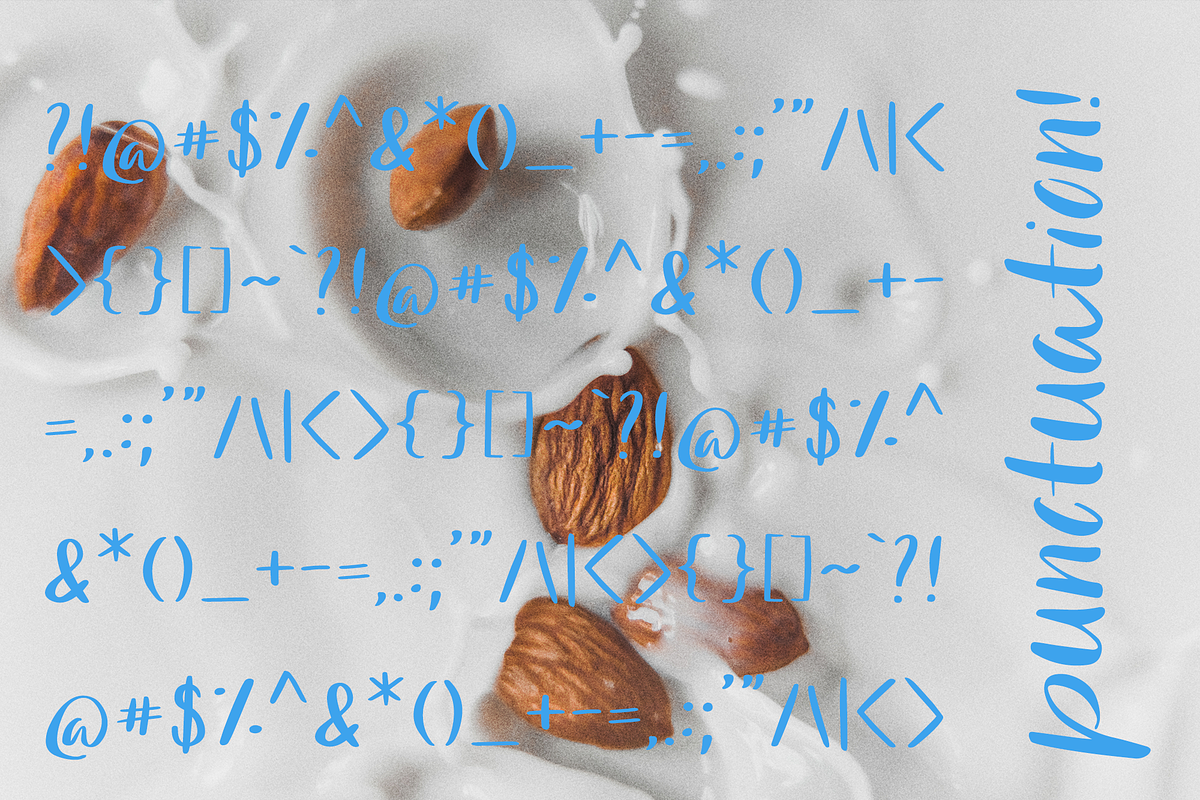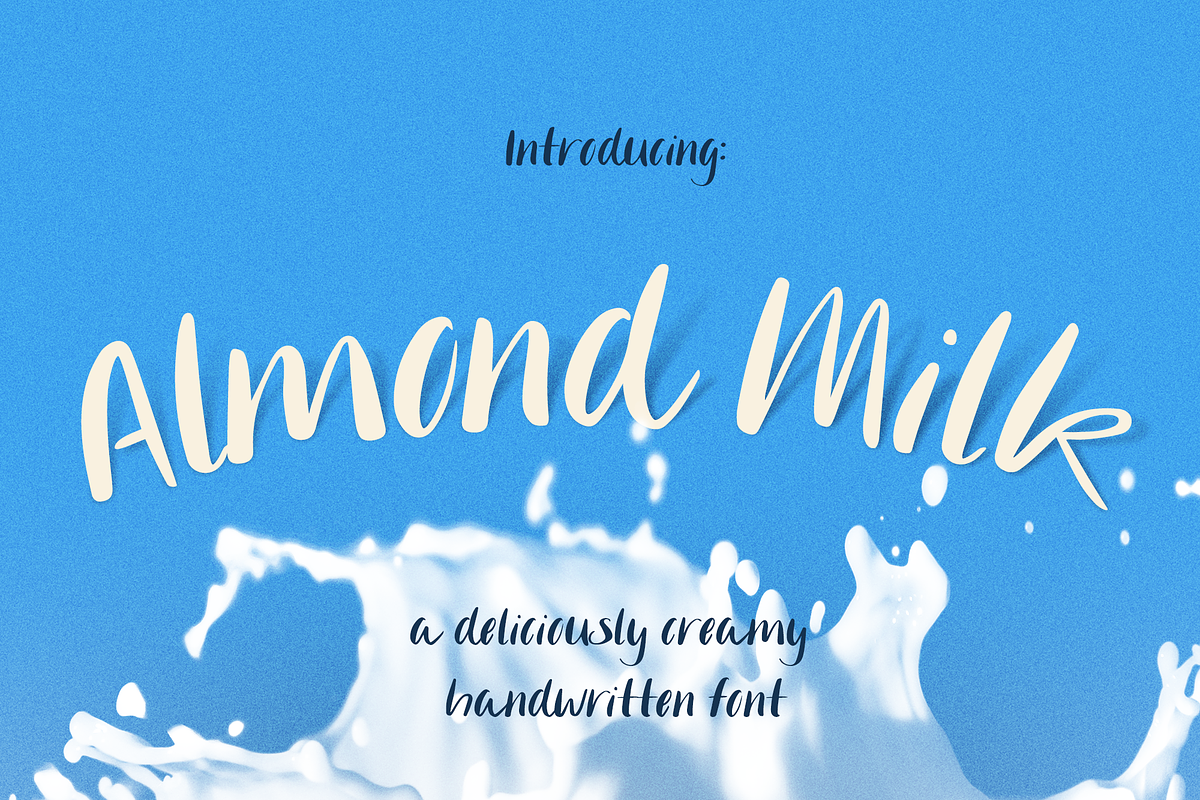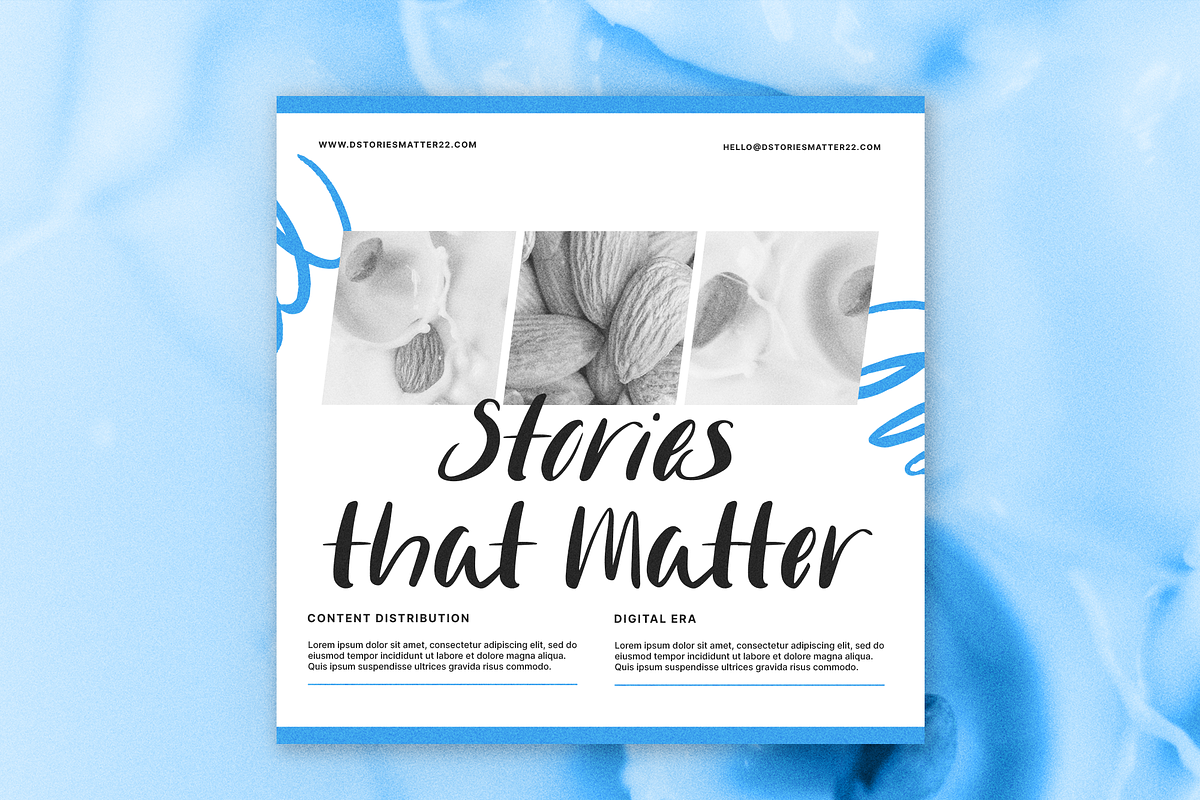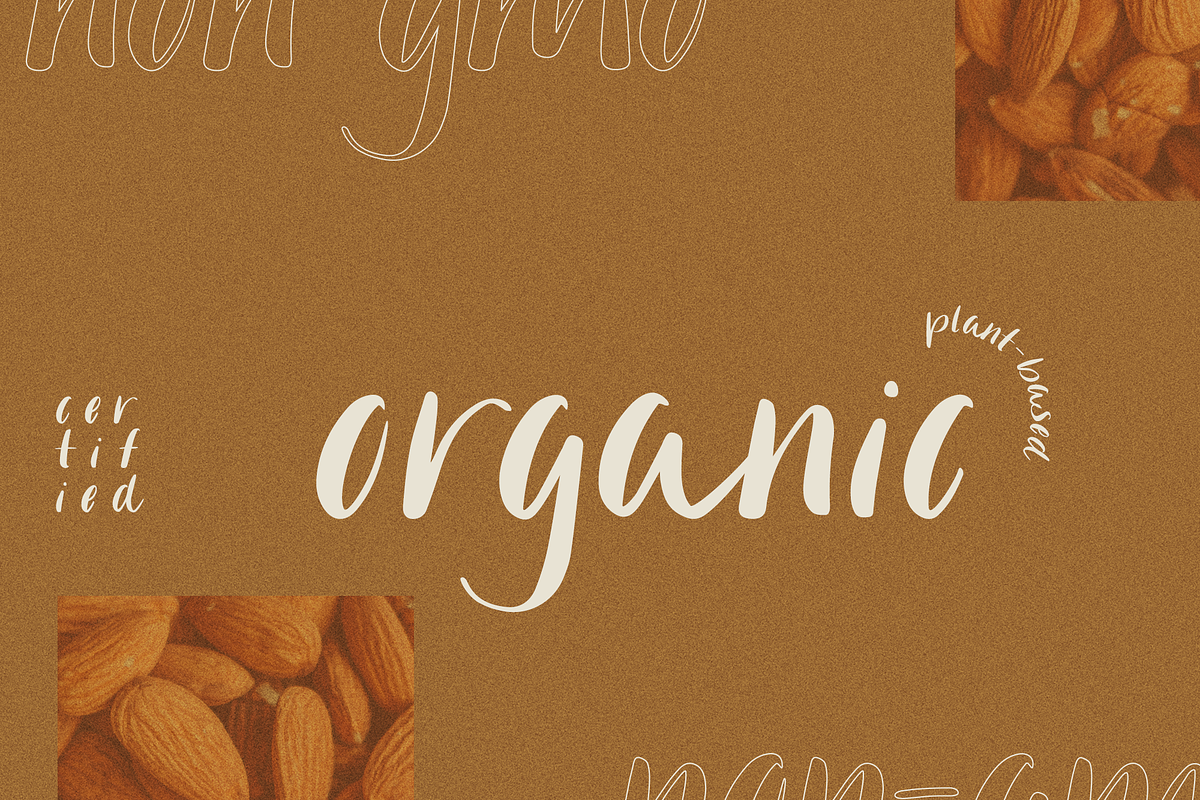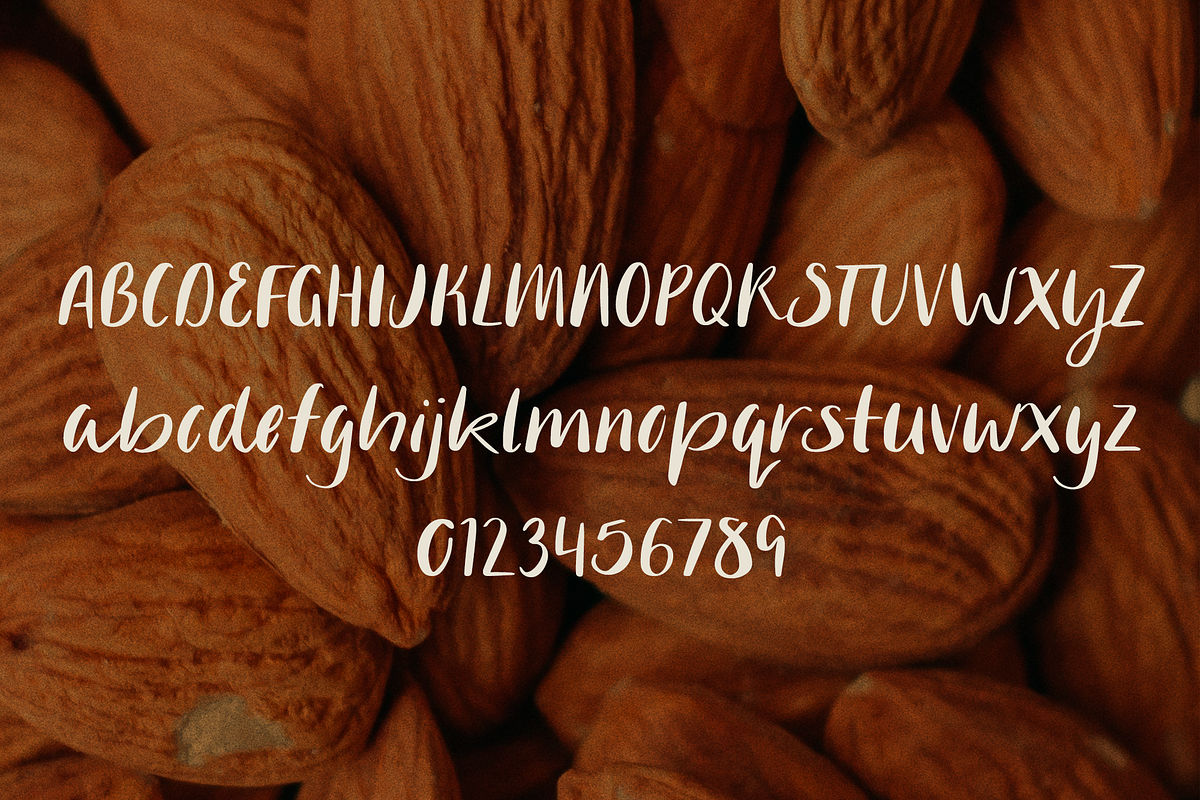
Almond Milk | Creamy Script Font
Almond Milk is a thick, smooth script font reminiscent of ink brush calligraphy with a handwritten twist. Perfect for branding, logos, social media, web, stickers, shirts, packaging and more!
Scales beautifully for versatility. Use it large to make a splash or scale it down for decorative details. Complete with punctuation and markings for even more fun!
- Punctuation and Marks